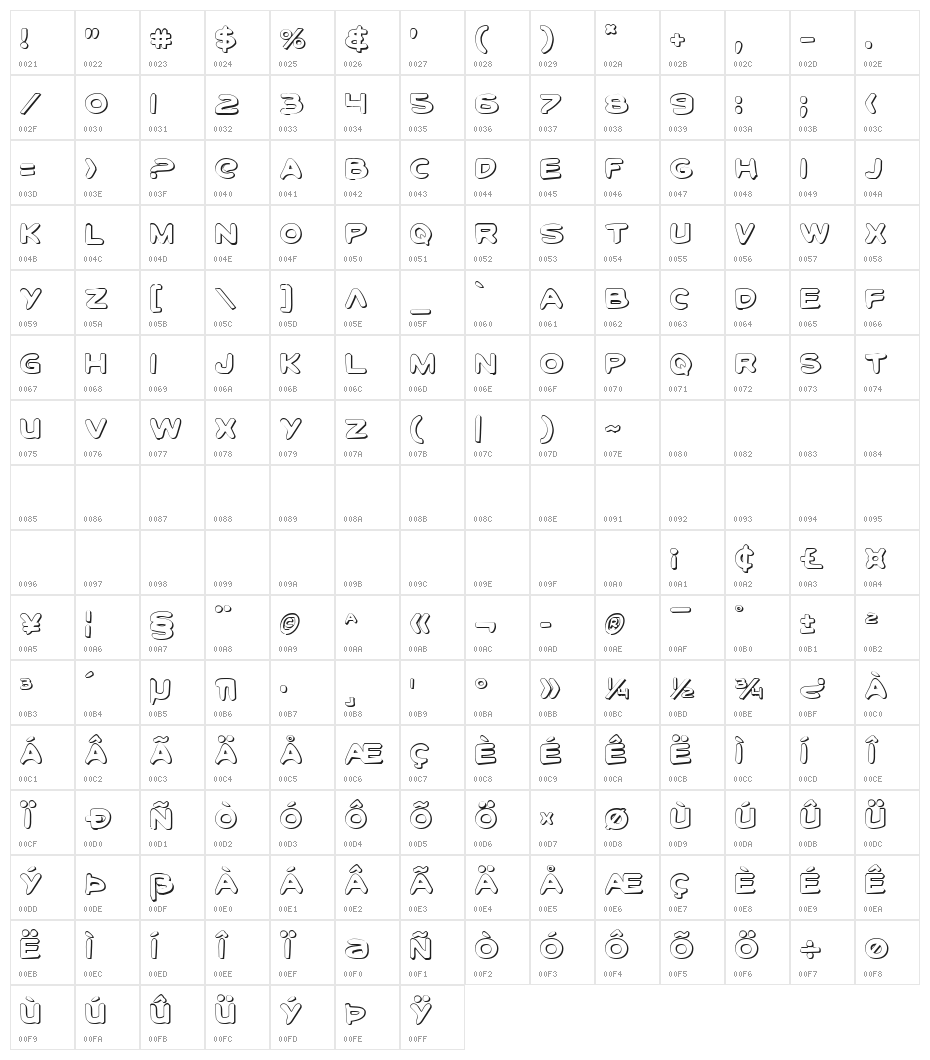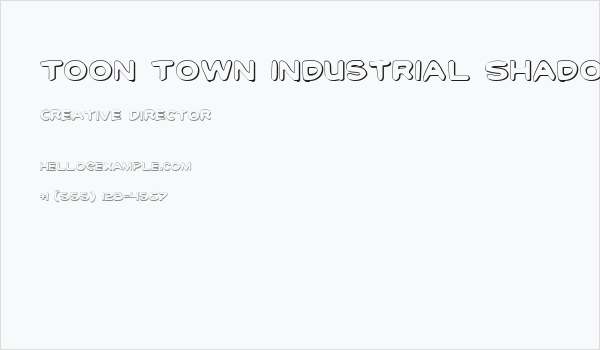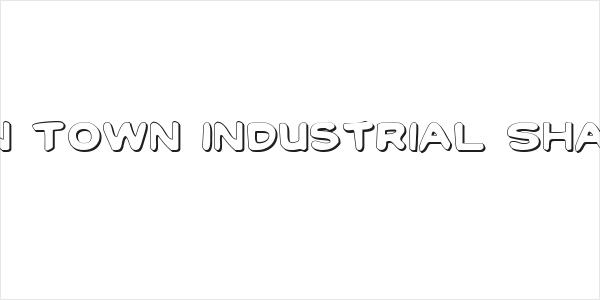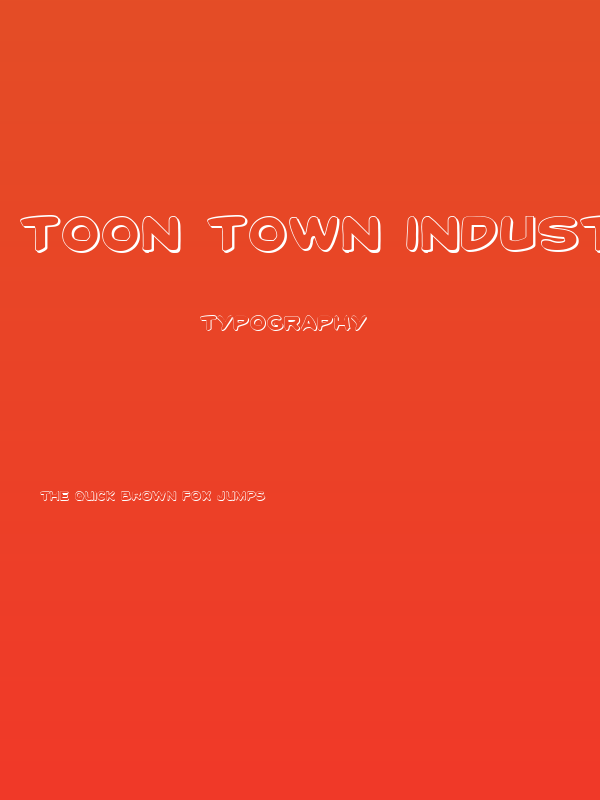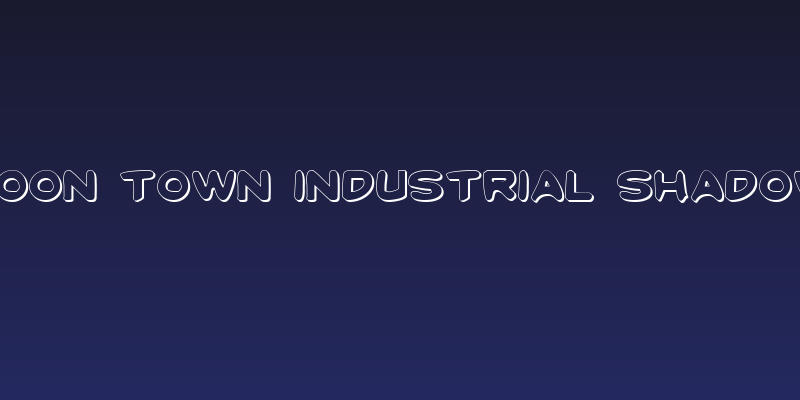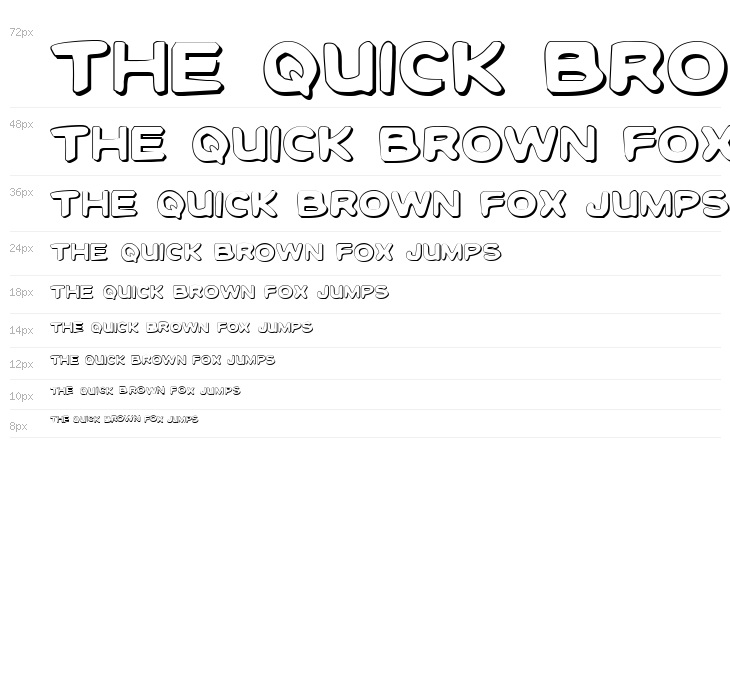
Toon Town Industrial Shadow Font
Toon Town Industrial Shadow Description
This playful and bold font features a cartoonish style with thick, rounded edges and a shadow effect that gives it a three-dimensional appearance. The characters are uniformly wide, with a consistent stroke thickness that adds to its whimsical and fun aesthetic. The font is highly legible, making it suitable for various creative projects. Its unique design is characterized by a strong presence and a lively, energetic vibe, perfect for capturing attention and conveying a sense of fun and excitement.
| Overall Style | Playful, Cartoonish |
| Proposed Projects | Ideal for children's books, comic strips, playful branding, and eye-catching posters. |